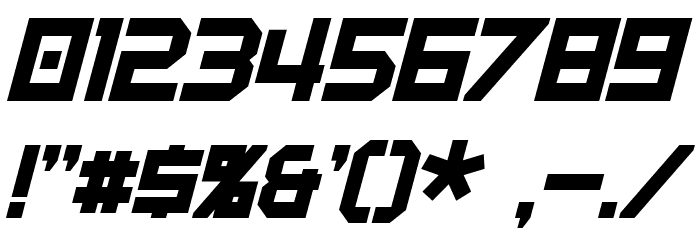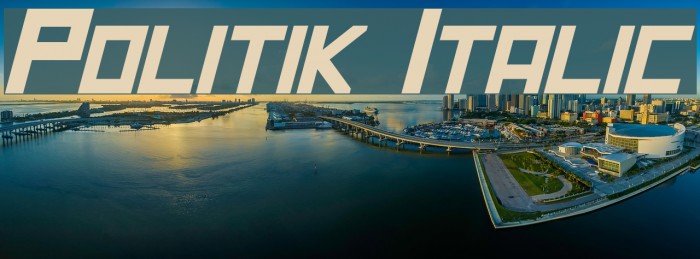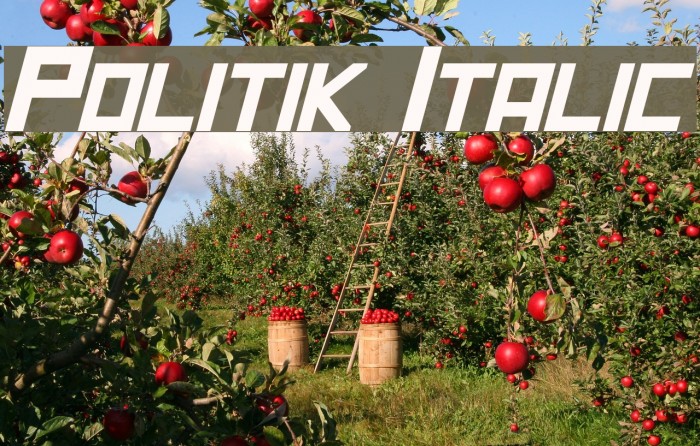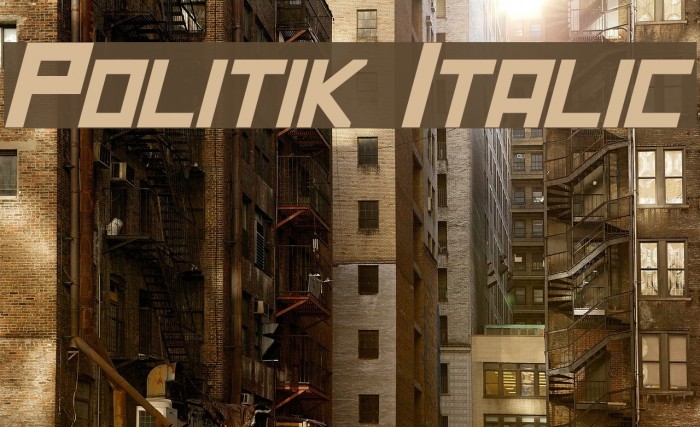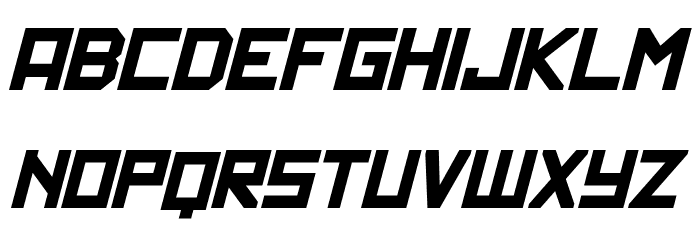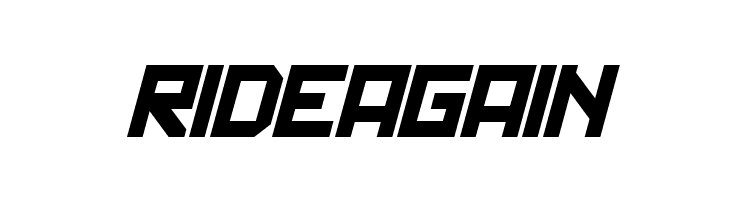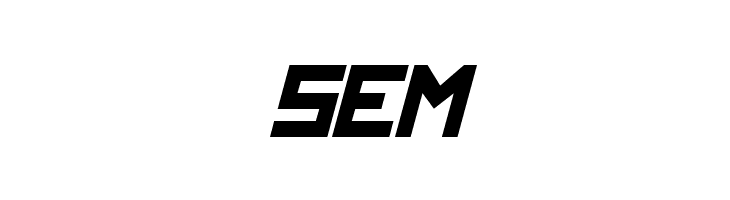
Politik Italic Font
Politik Italic Description
This font features a bold, angular design with a strong geometric influence. The italicized style adds a dynamic and forward-leaning appearance, making it ideal for projects that require a sense of motion or urgency. The characters are constructed with sharp edges and a consistent stroke width, giving it a modern and futuristic feel. The uppercase and lowercase letters maintain a uniform height, contributing to a cohesive and structured look. The numerals and special characters are designed to match the bold and angular aesthetic, ensuring consistency across all elements.
A bold, angular, and italicized font with a modern geometric style from Uncategorized fonts.
• Proposed Projects: Ideal for sports branding, technology logos, dynamic posters, and modern editorial design.
• Bold: Yes
• Italic: Yes
• Weight: Bold
• Width: Normal
• Character Spacing: Normal
• Contrast: Low
• Overall Style: Modern
• Use Case: Logos, Headlines, Posters